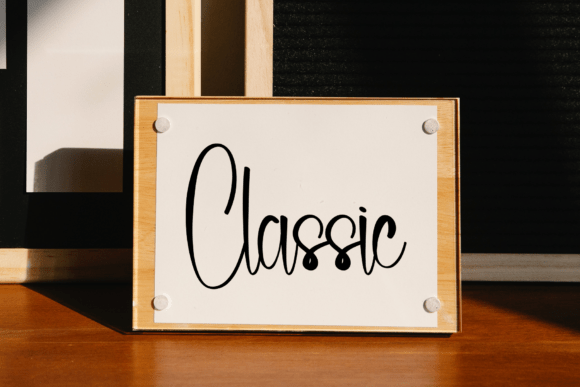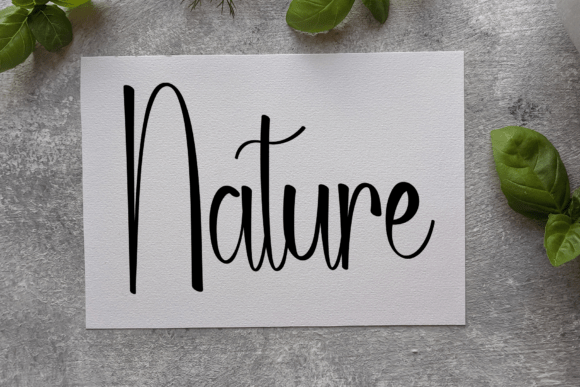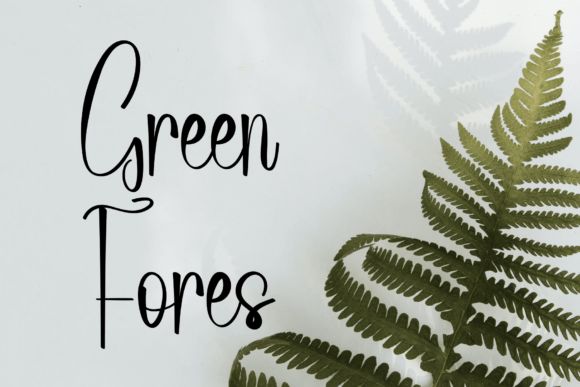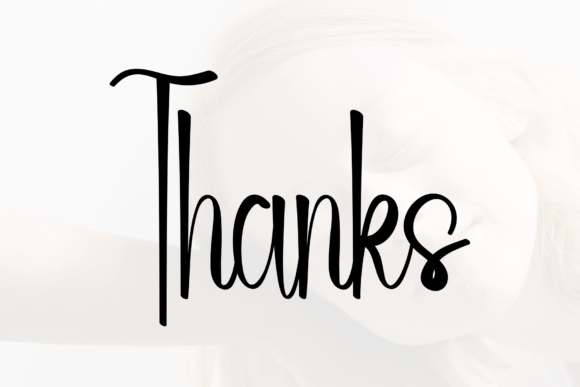
Glandis Font: A Sweet and Beautiful Handwritten Font for Your Design Projects
Are you looking for a font that can add a personal touch to your design projects? Look no further than the Glandis Font! This sweet and beautiful handwritten font is perfect for designers and crafters who want to create unique and eye-catching designs. In this article, we’ll take a closer look at the Glandis Font, its features, and how you can use it to elevate your design projects.
What is Glandis Font?
Glandis is a sweet and beautiful handwritten font that features characters that dance along the baseline. This font is perfect for adding a cozy accent to any design project you wish to create. Whether you’re working on a logo, branding materials, or social media graphics, the Glandis Font is sure to make your designs stand out.
Features of Glandis Font
The Glandis Font has several features that make it a great choice for designers and crafters. Some of its key features include:
- Handwritten style: The Glandis Font has a beautiful handwritten style that gives it a personal and unique touch.
- Dancing characters: The characters in the Glandis Font dance along the baseline, adding a playful and whimsical touch to your designs.
- Cozy accent: The Glandis Font adds a cozy accent to any design project, making it perfect for designs that require a personal touch.
- Easy to read: Despite its playful style, the Glandis Font is easy to read, making it perfect for body text and headings.
How to Use Glandis Font in Your Design Projects
The Glandis Font is versatile and can be used in a variety of design projects. Here are some ideas on how to use the Glandis Font:
- Logos and branding materials: Use the Glandis Font to create unique and eye-catching logos and branding materials that reflect your brand’s personality.
- Social media graphics: Add a personal touch to your social media graphics with the Glandis Font. Use it to create engaging and shareable graphics that stand out in crowded feeds.
- Invitations and cards: The Glandis Font is perfect for creating beautiful and personalized invitations and cards for special occasions.
- Web design: Use the Glandis Font to add a personal touch to your website’s design. It’s perfect for headings, titles, and other design elements that require a unique touch.
Tips for Using Glandis Font Effectively
Here are some tips for using the Glandis Font effectively in your design projects:
- Pair it with other fonts: The Glandis Font pairs well with other fonts, especially sans-serif fonts. Experiment with different font combinations to find the perfect pairing.
- Use it sparingly: While the Glandis Font is beautiful, it can be overwhelming if used excessively. Use it sparingly to add a touch of personality to your designs.
- Experiment with colors: The Glandis Font looks great in a variety of colors. Experiment with different colors to find the perfect shade that matches your brand’s color scheme.
The Glandis Font is a beautiful and sweet handwritten font that can add a personal touch to your design projects. Its unique features, such as dancing characters and a cozy accent, make it perfect for designers and crafters who want to create unique and eye-catching designs. By following the tips outlined in this article, you can use the Glandis Font effectively in your design projects and take your designs to the next level.